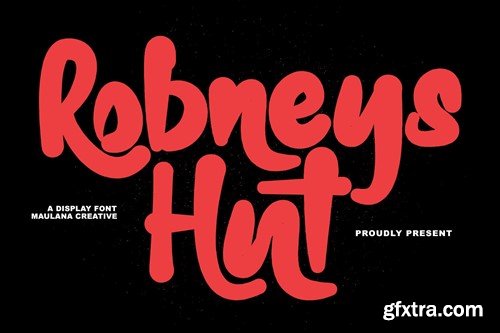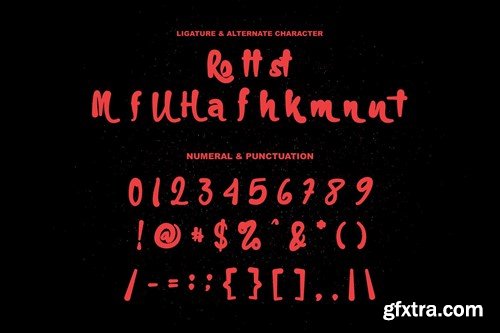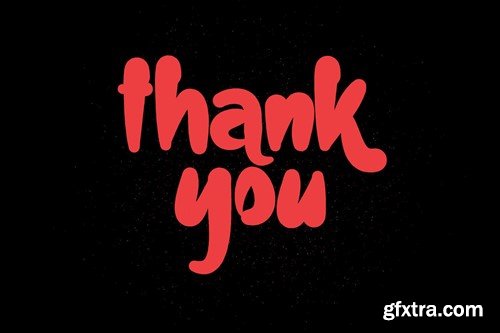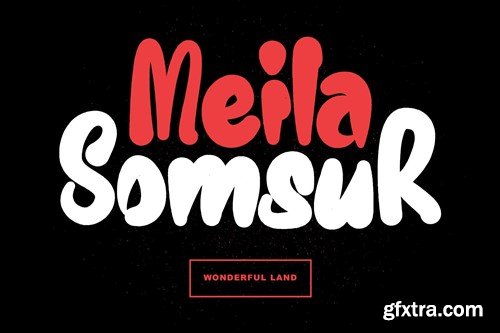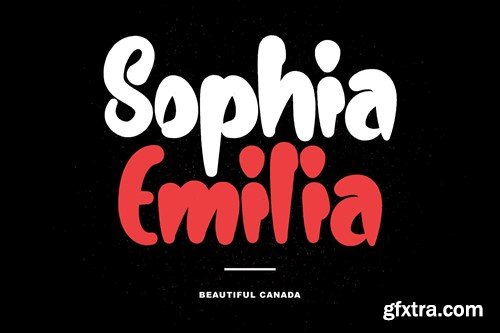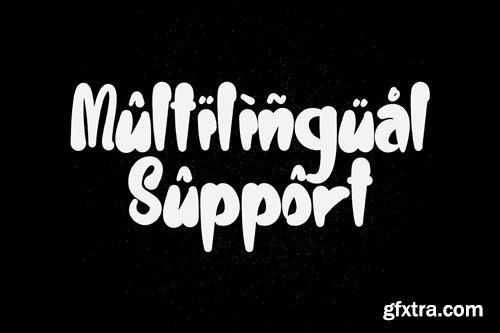
罗宾斯小屋现代无衬线字体Z4UCKH4
Robneys Hut Modern Display Font
Robneys Hut modern display font. This font is good for logo design, Social media, Movie Titles, Books Titles, a short text even a long text letter and good for your secondary text font with signature or script typeface. Make a stunning work with Robneys Hut modern display font. What you get: Cheers, Maulana Creative